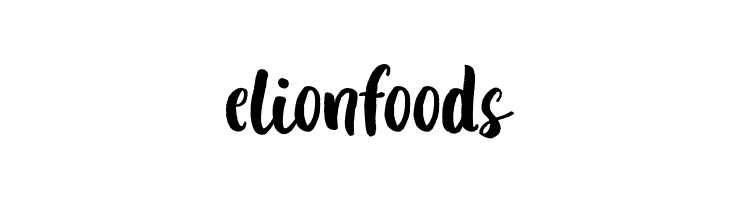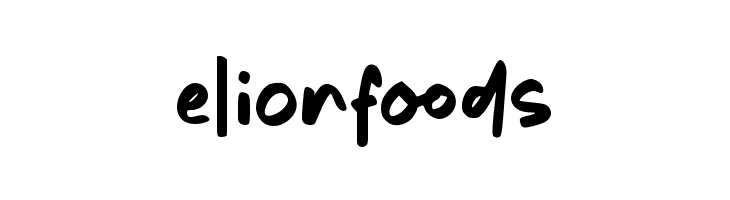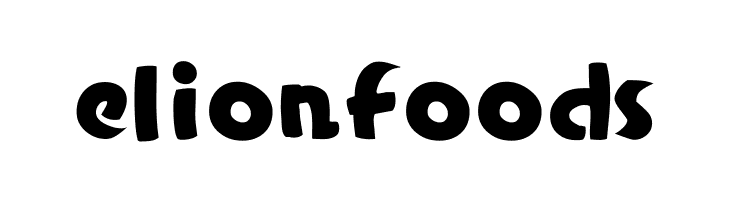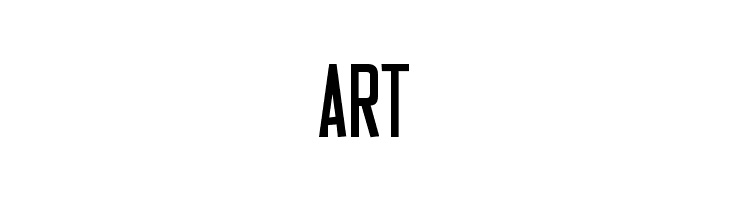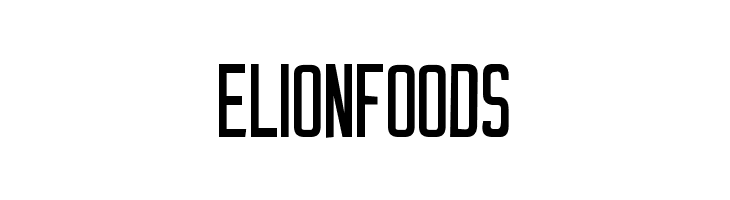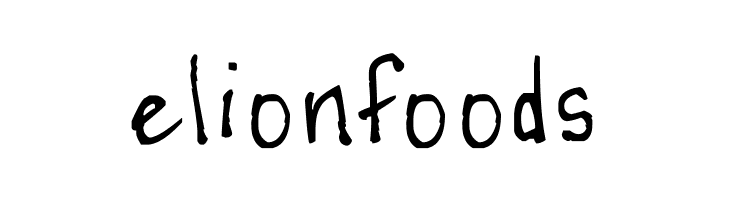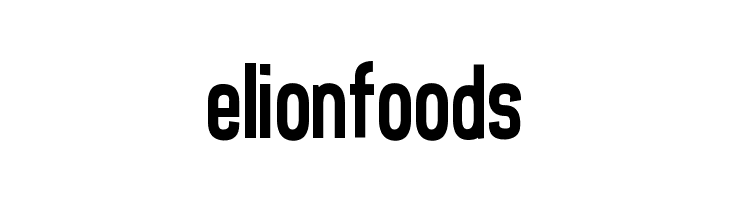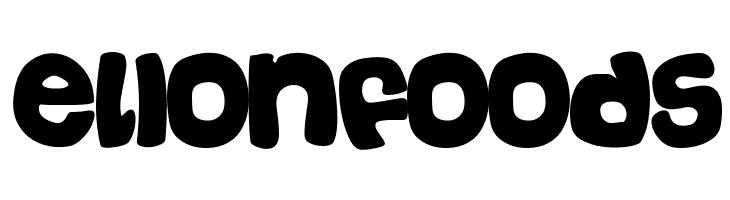
A bold, playful font with rounded, thick strokes and a casual, friendly vibe.
A playful, hand-drawn font with bold, rounded characters.
A playful, casual font combining bold uppercase and script-like lowercase letters.
A bold, handwritten font with a playful and casual style.
A playful, handwritten font with a casual and informal style.
A bold, modern font with tall, narrow characters ideal for impactful headlines.
A bold, handwritten font with a casual and expressive style.
Casual, sketchy handwritten font.
A bold, modern sans-serif font with a strong, impactful presence.